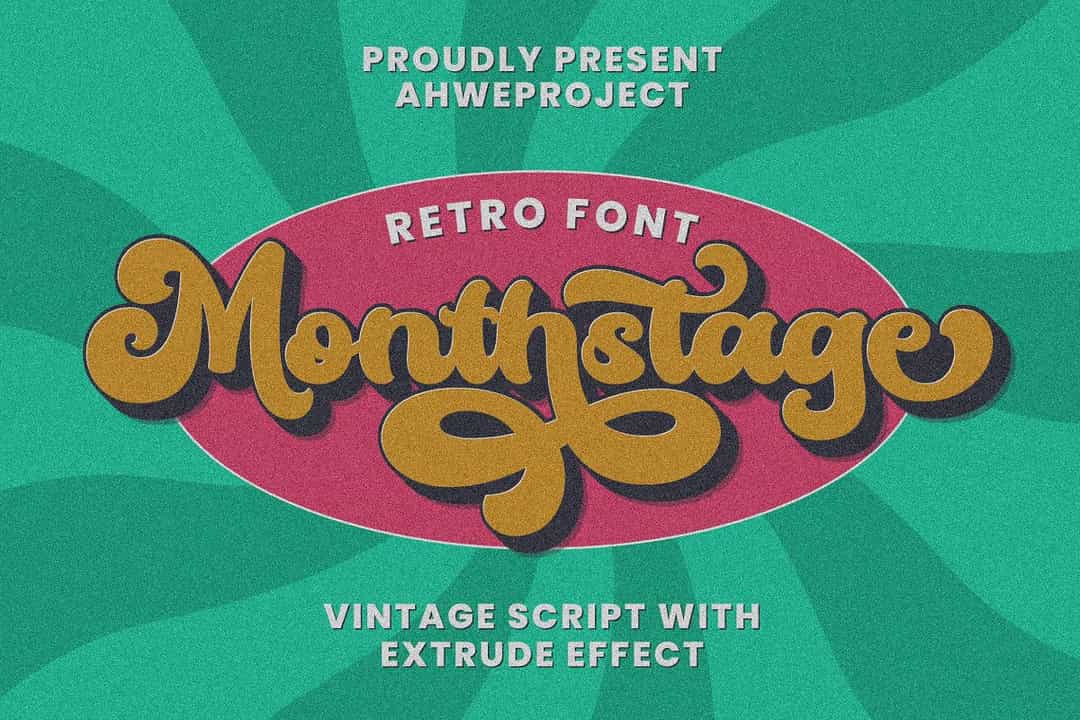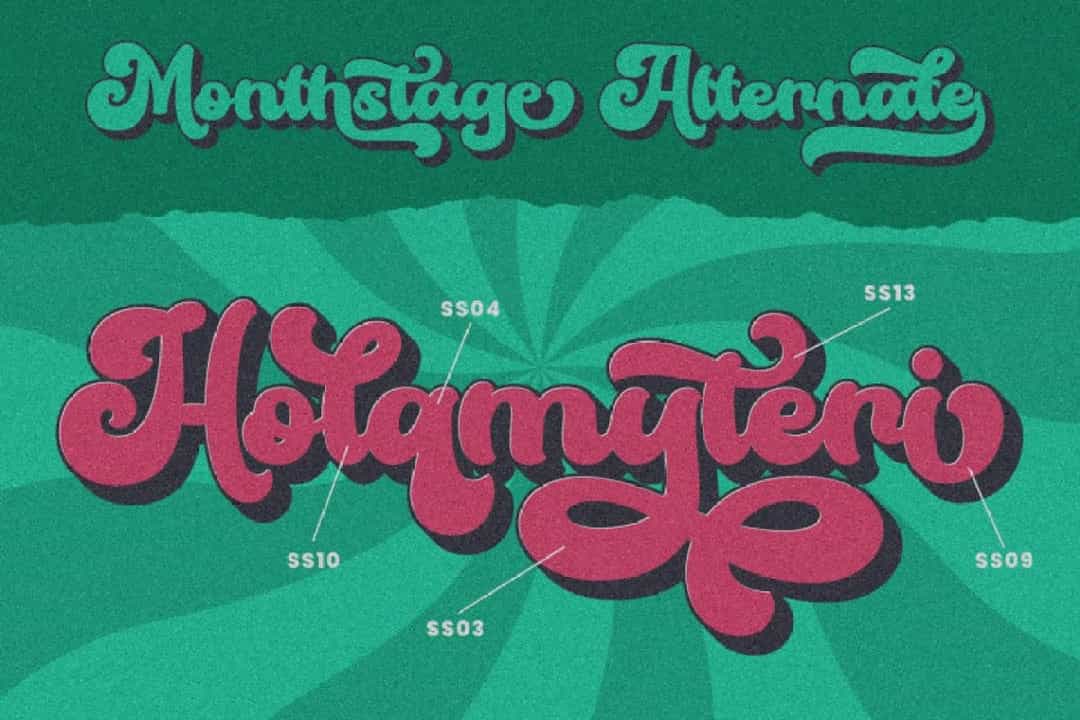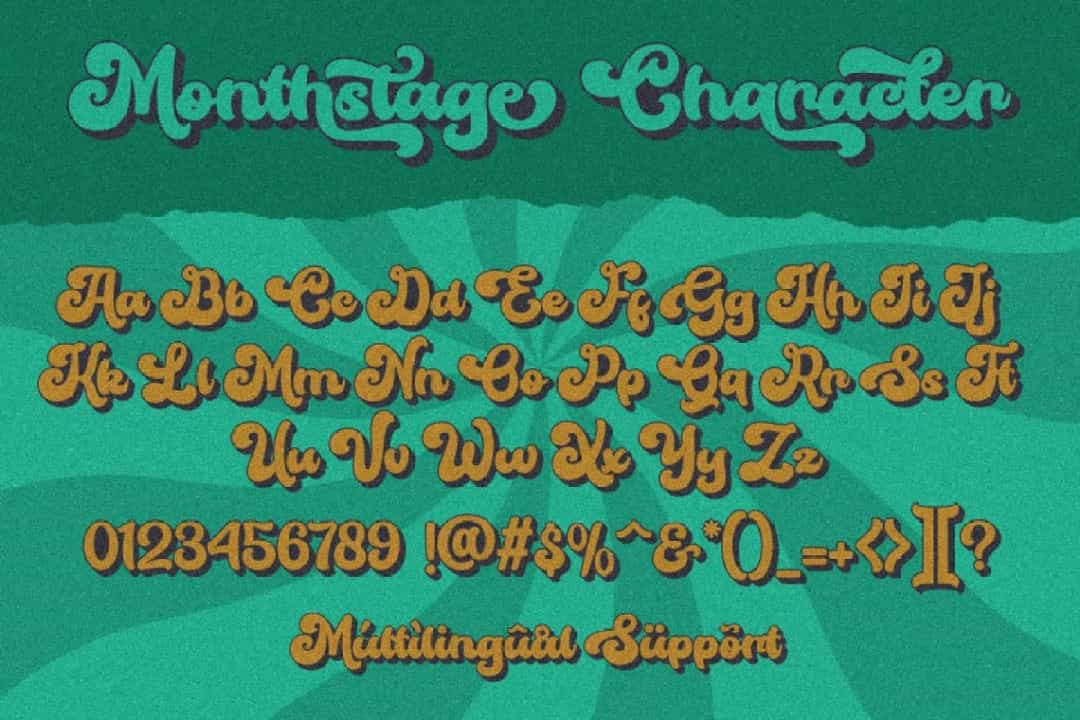
Monthstage is an antique vintage font inspired by vintage lettering and typography from the 70s and 1980s with its retro lettering style, combined with its modern edged style of typography. Perfect for retro and vintage-themed designs such as badges, logos, posters, t-shirts, branding packaging signs books covers and lots more!